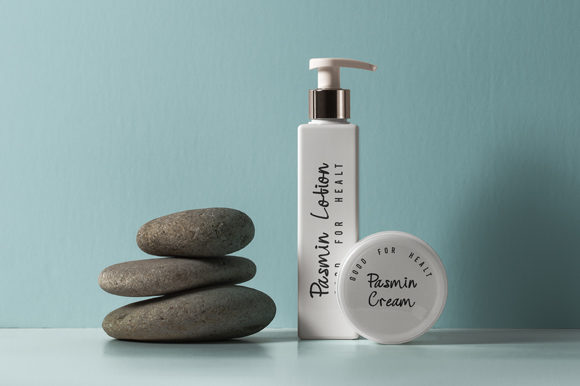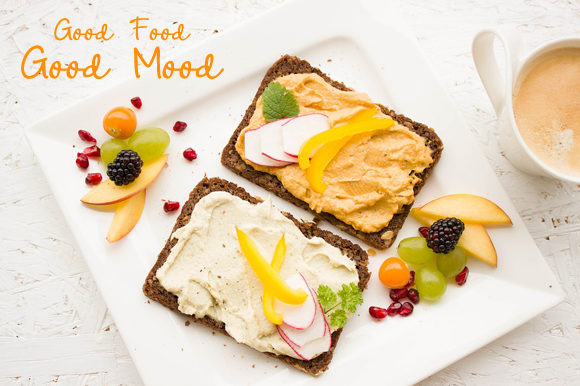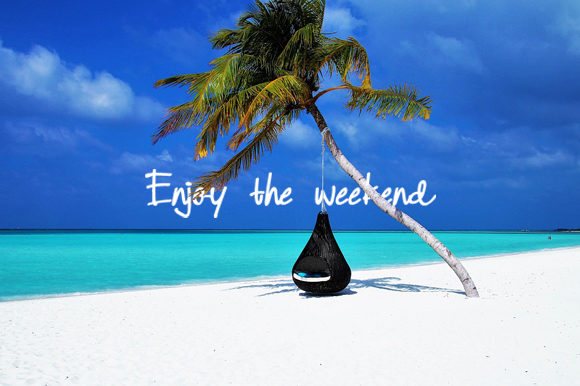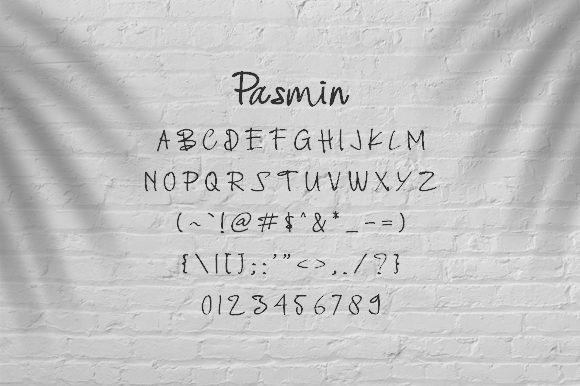
HomeScript FontsPasmin Font Script Fonts Pasmin Font FacebookXPinterestWhatsApp Pasmin Font Poster 2 Pasmin Font Poster 3 Pasmin Font Poster 4 Pasmin Font Poster 5 About Pasmin Font Pasmin is a handwritten script font with a lovely style. Get inspired by its casual appearance! DOWNLOAD NOW People also explored Butterfly and Roses Font Dream Road Font Kaehan Font The Army of God Font Toronto Font Broaven Font The Family Font Seattles Font Tegowangi Summer Font 361 0 TagsPasmin Font Previous articleStanburghe FontNext articleSapda Tama Font LEAVE A REPLY Cancel reply Comment: Please enter your comment! Name:* Please enter your name here Email:* You have entered an incorrect email address! Please enter your email address here Website: Save my name, email, and website in this browser for the next time I comment. Personal Use Free The 10 Best Handwriting Fonts to Add Personality to Your Designs Blog Read more about this font Elsabetha Personal Use Free Read more about this font Heartburn Personal Use Free Read more about this font The Quick Personal Use Free Read more about this font BLOG Free Fonts Risk: Why Free Fonts Can Be Dangerous for Designers Free Fonts Risk: Why Free Fonts Can Be Dangerous for Designers Using free fonts is a common practice in web and graphic design. However, the... Free vs Paid Fonts: Why Investing in Premium Fonts Is Worth It How to Install and Use Fonts on Windows, macOS, and Web Projects Exploring Font Trends